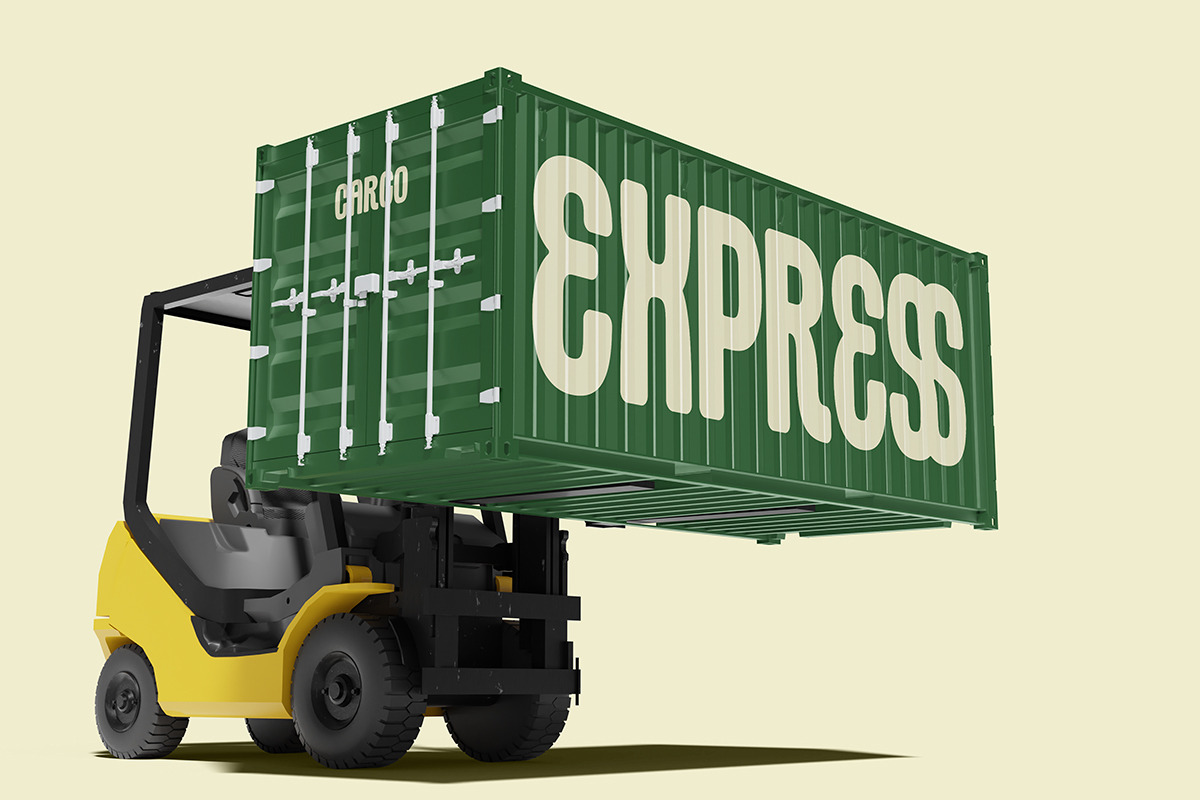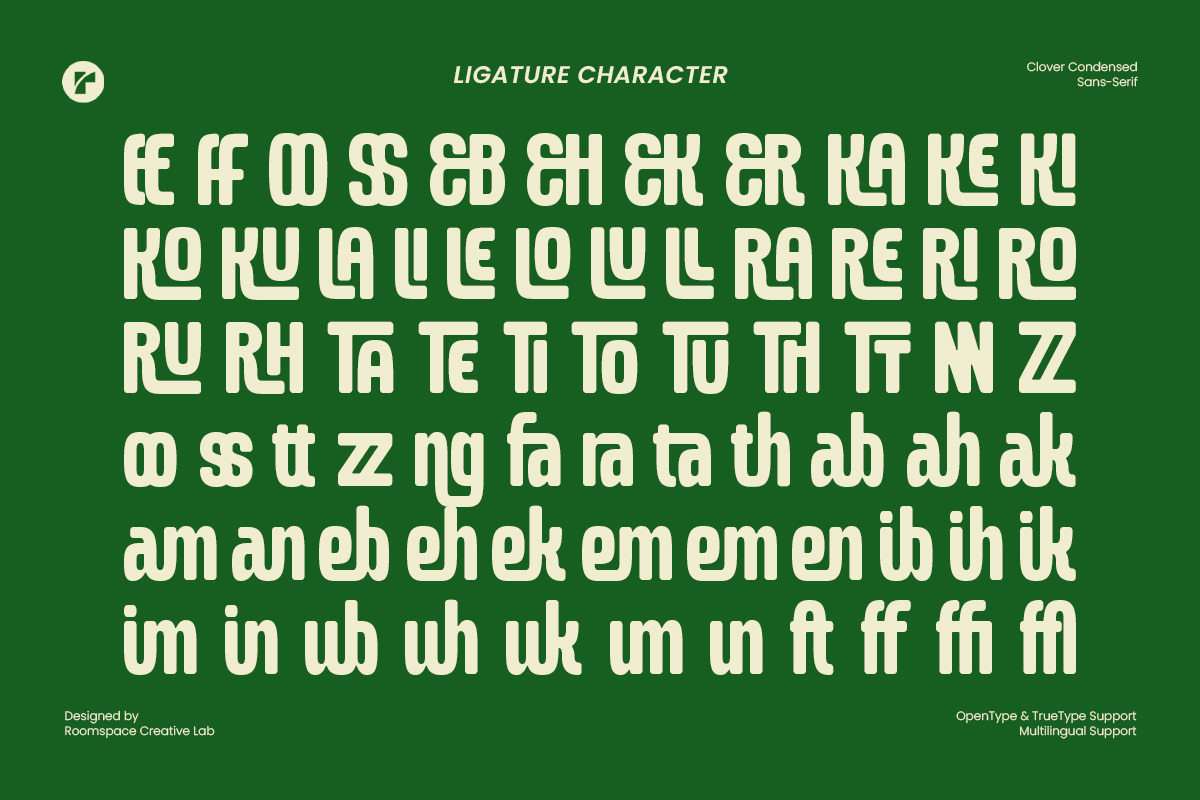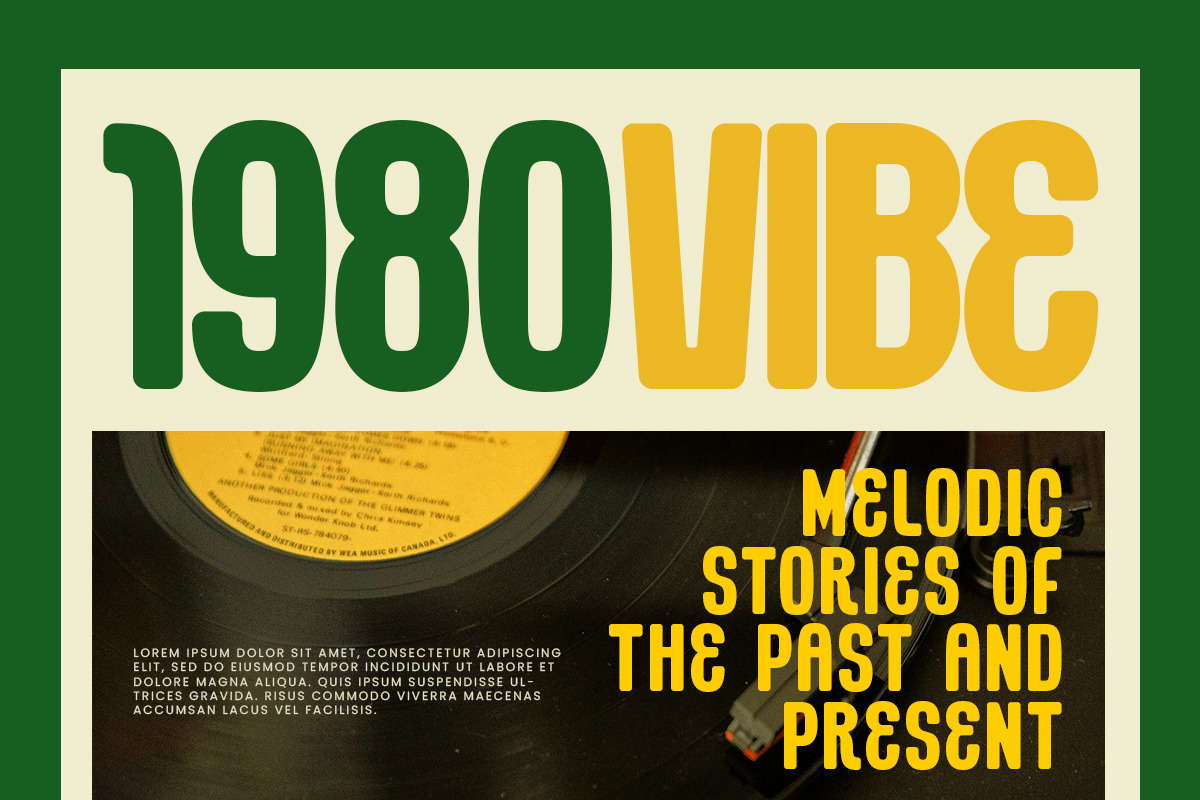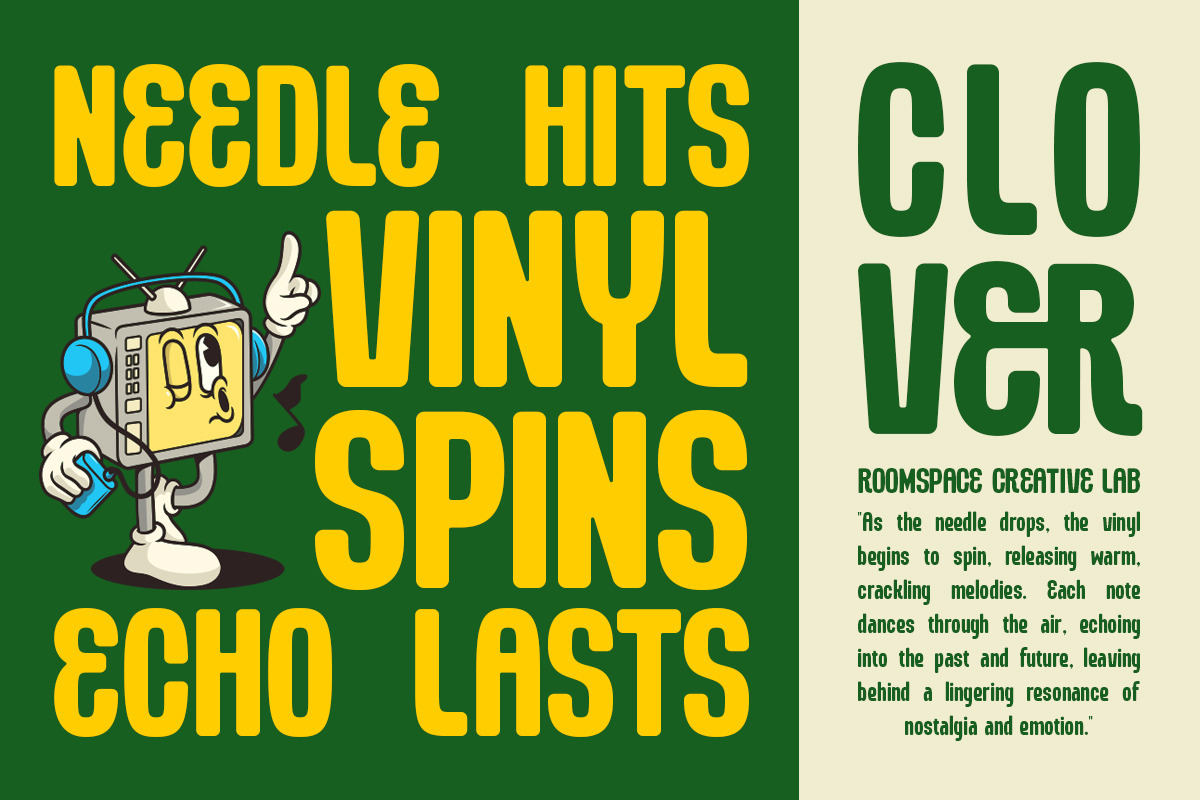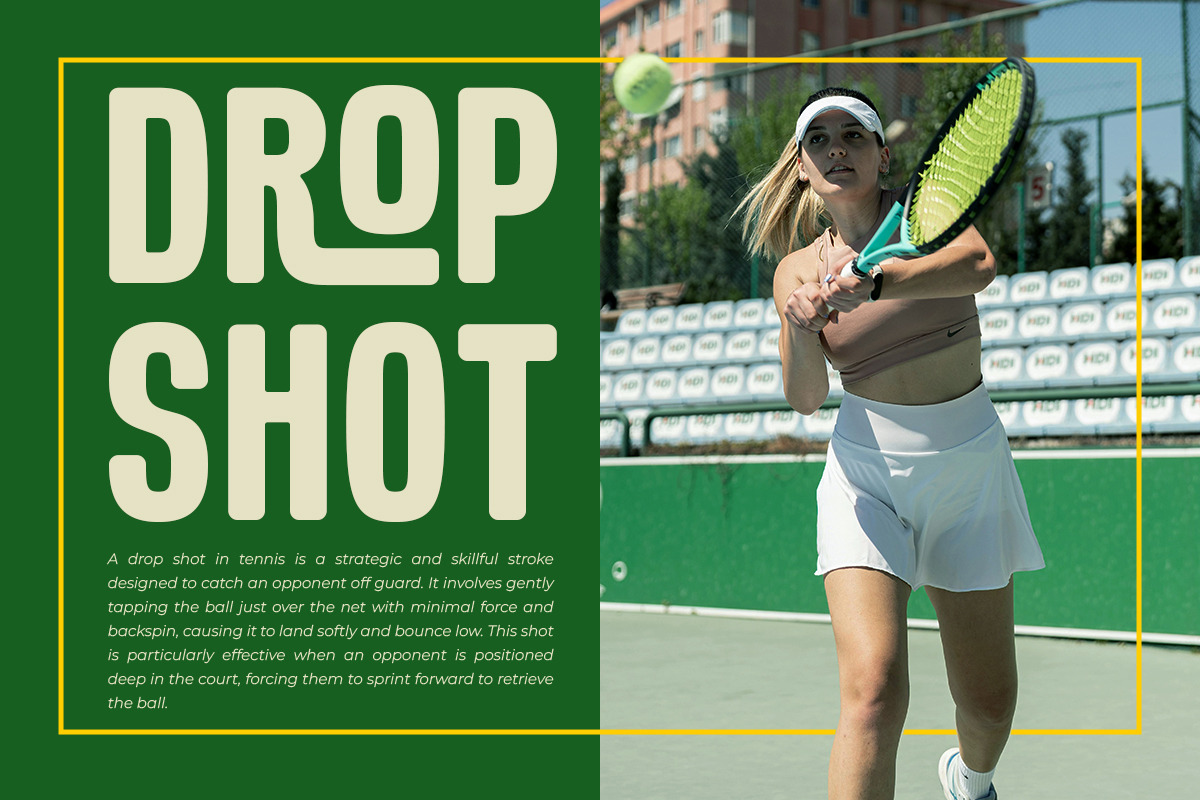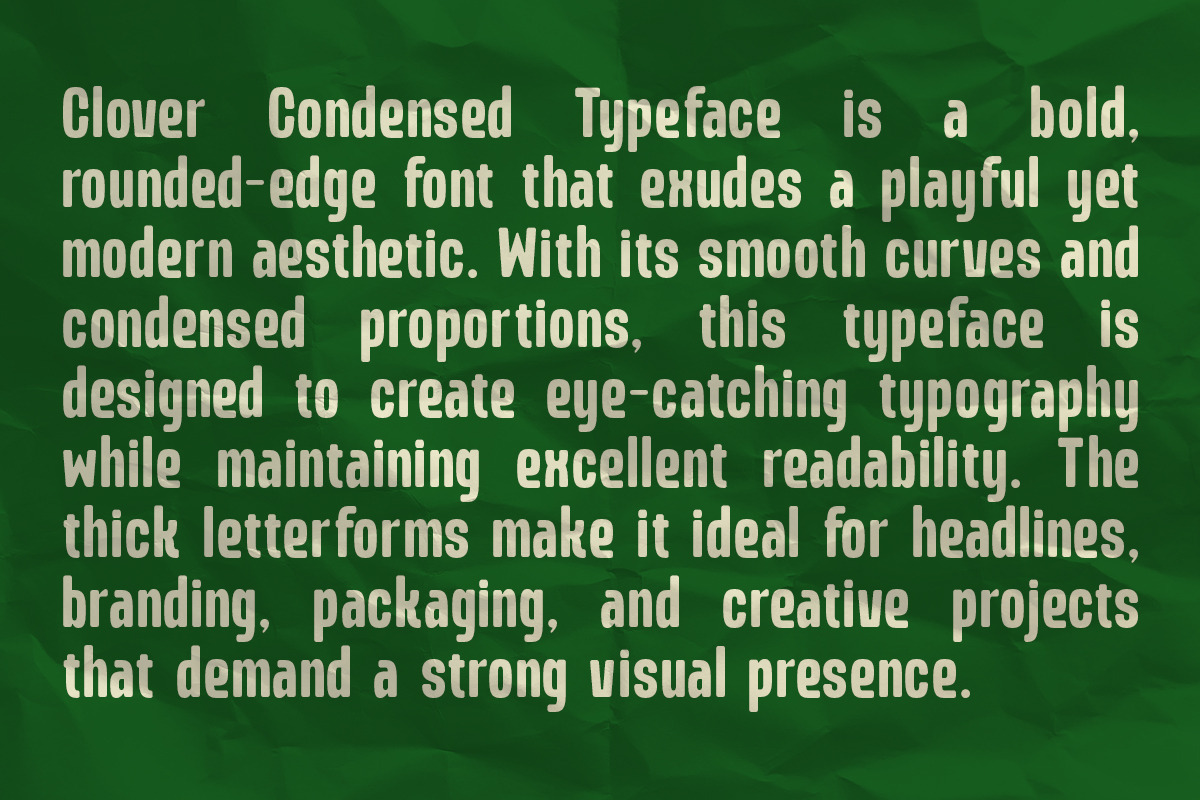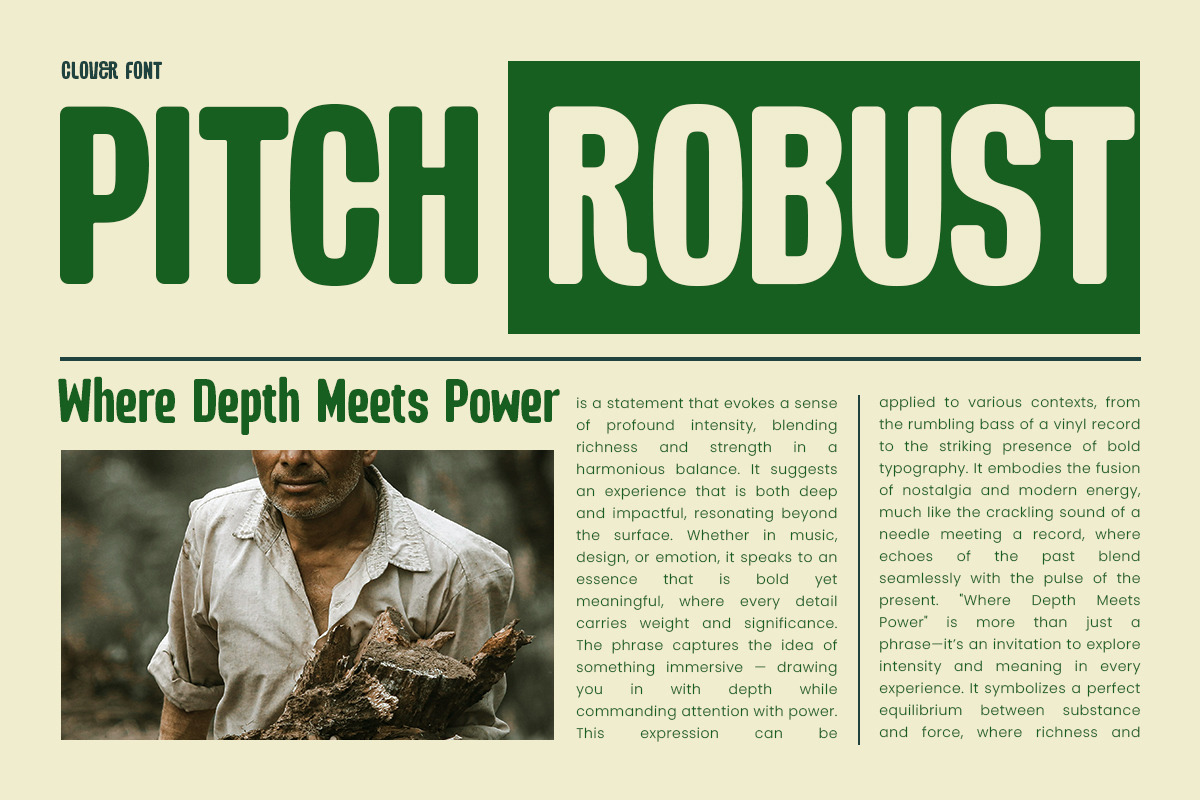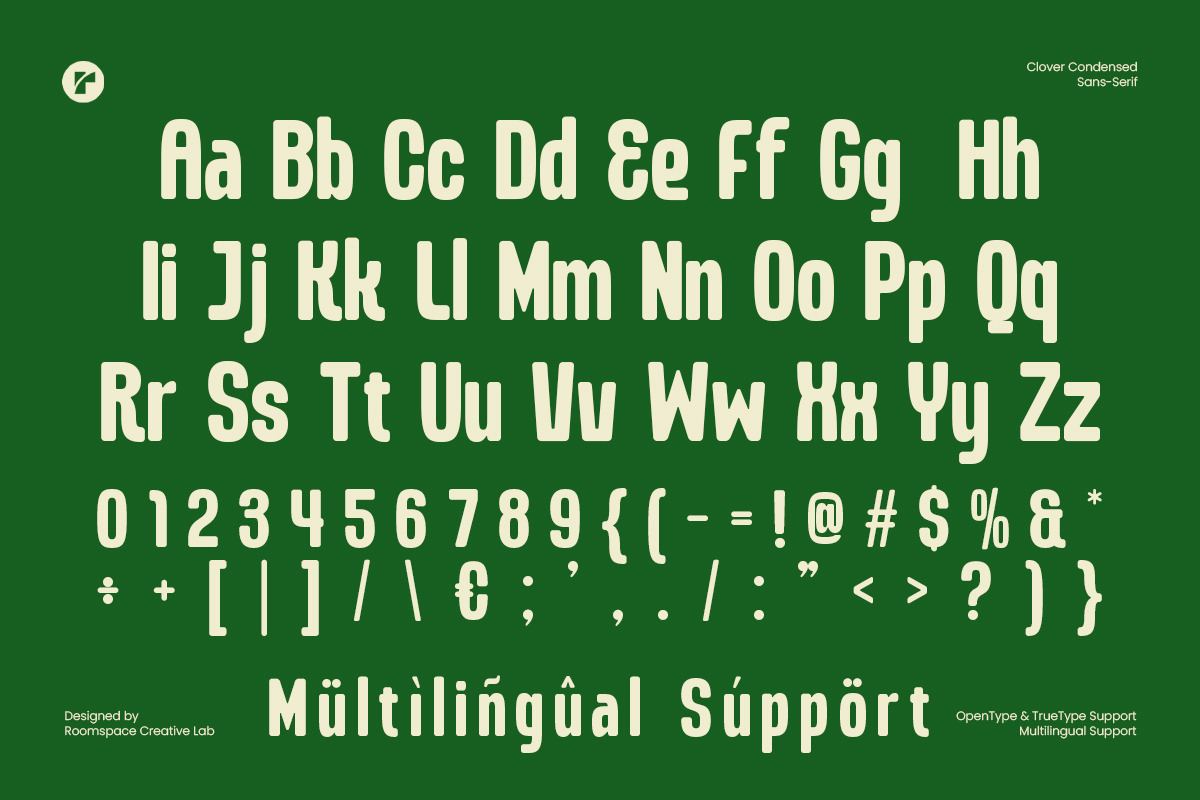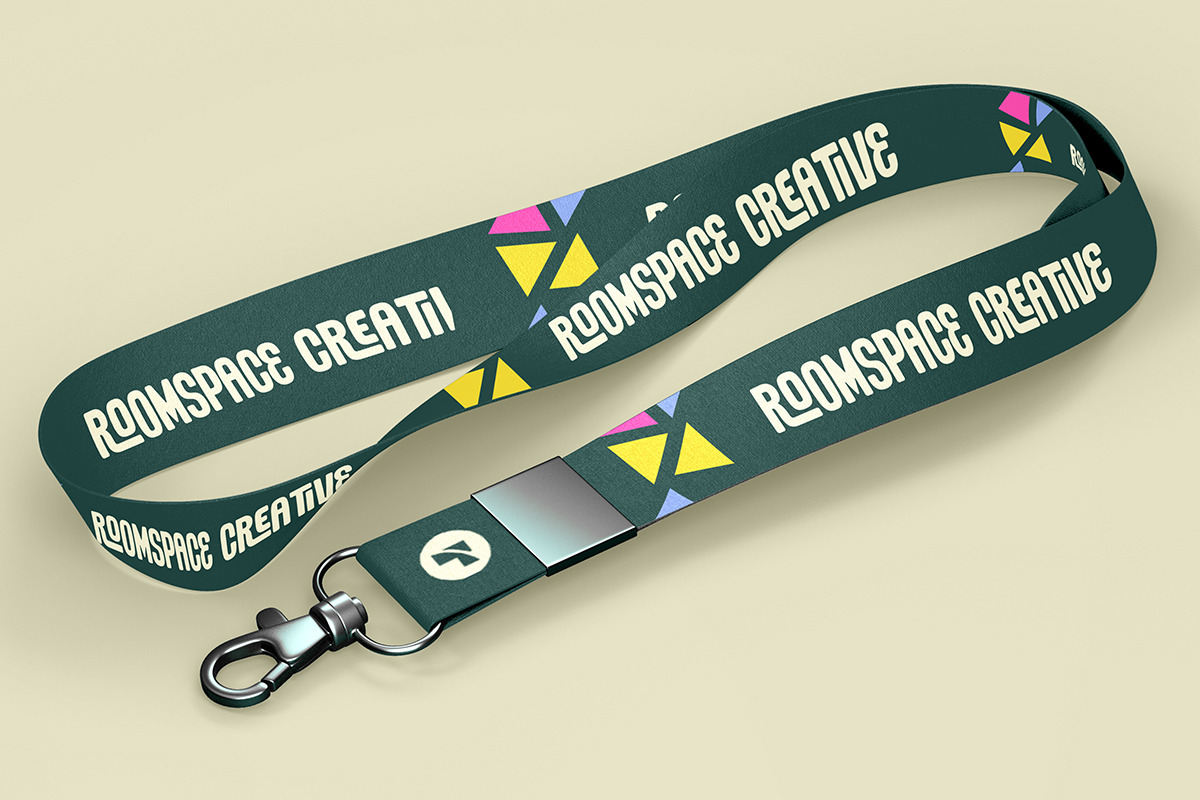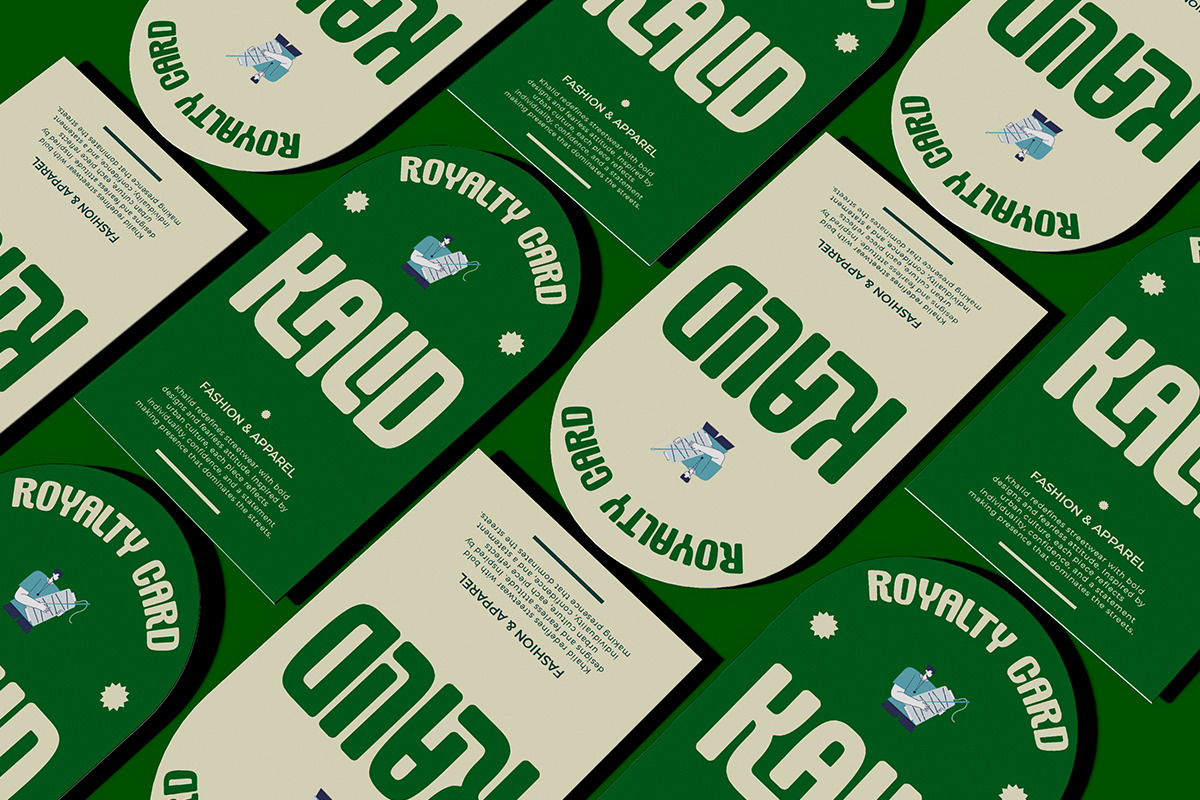
Clover Condensed - Elegant Modern
Clover Condensed is a bold and modern sans serif font with a strong, blocky, and versatile style. Designed for branding, logos, posters, gaming, esports, and editorial design, this extra-condensed display font offers a powerful presence while ensuring great readability.
Its clean yet dynamic structure makes it perfect for film posters, web design, advertising, and high-impact headlines. Whether you're creating premium branding, a sleek gaming layout, or a bold magazine cover, Clover Condensed brings a modern edge to your typography.